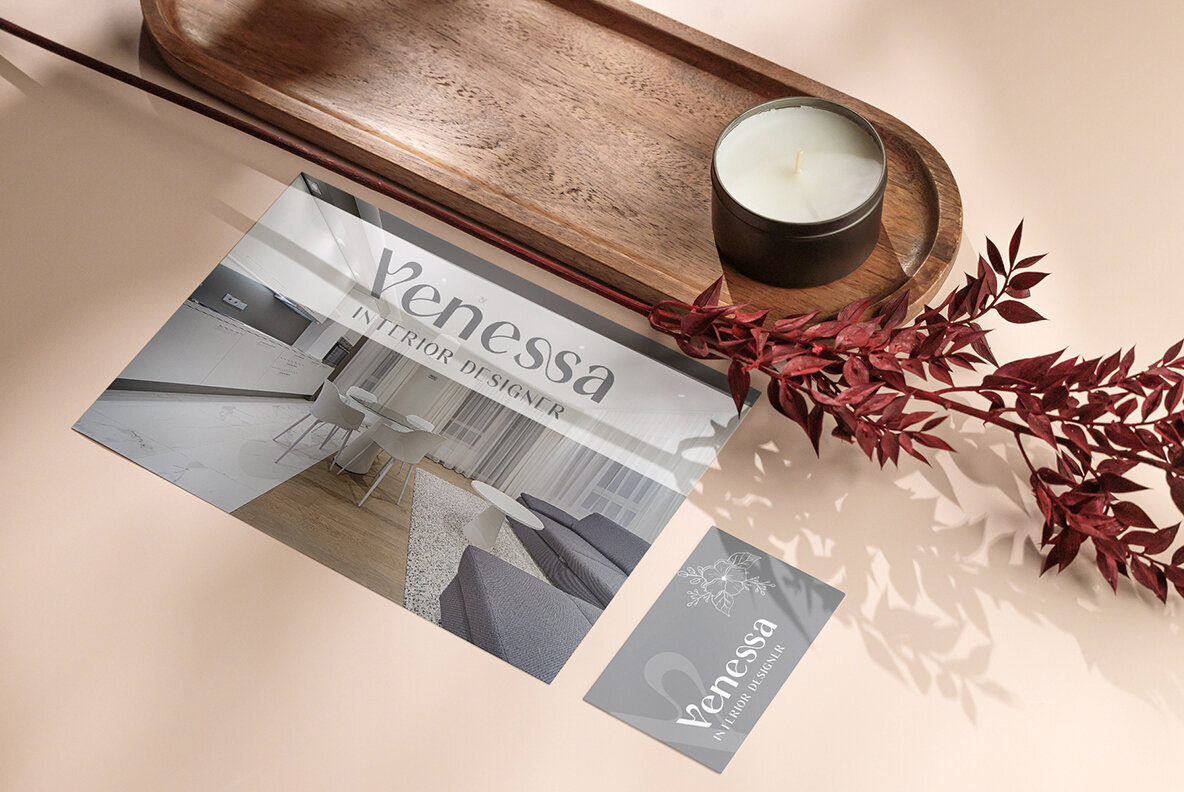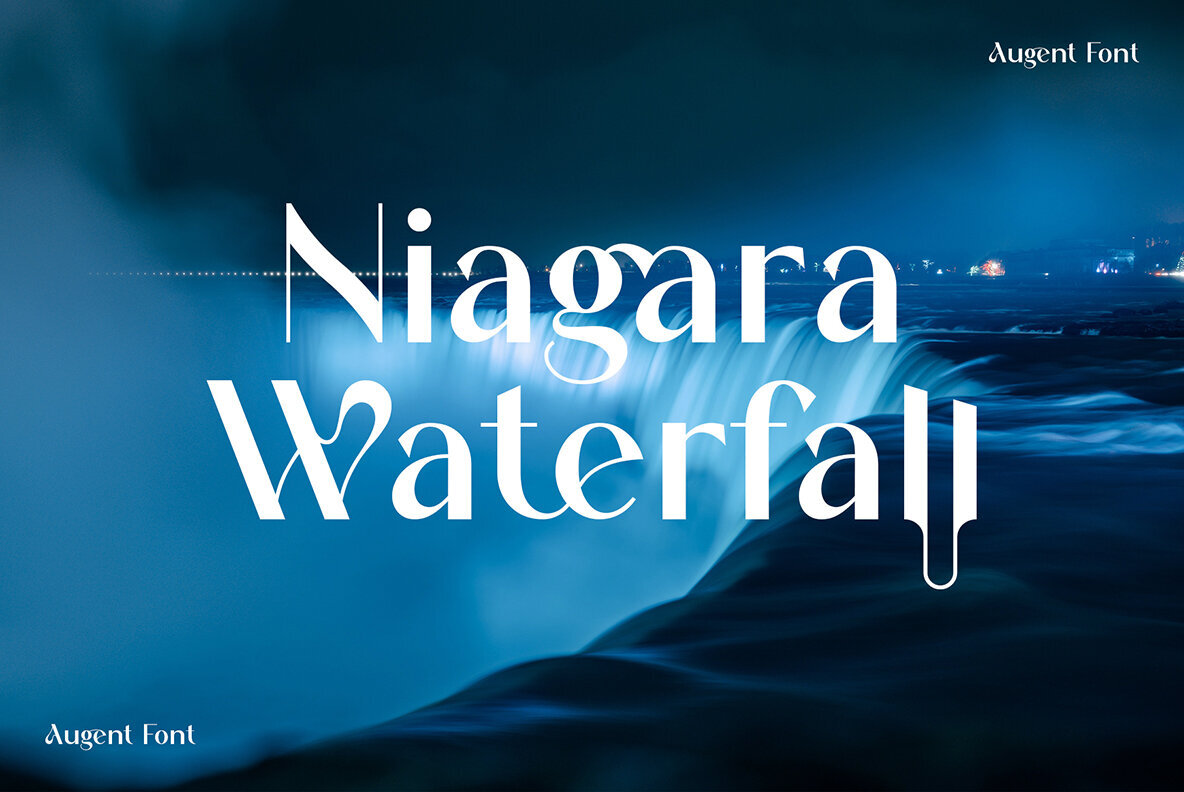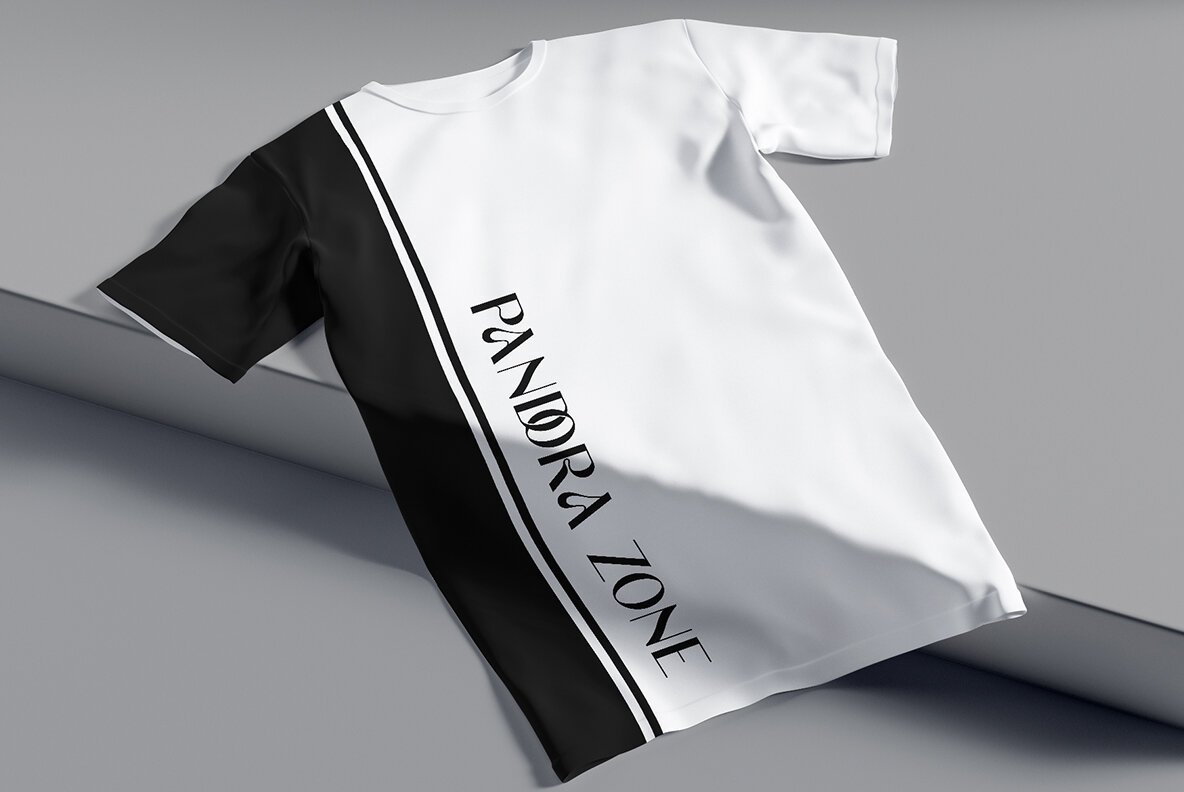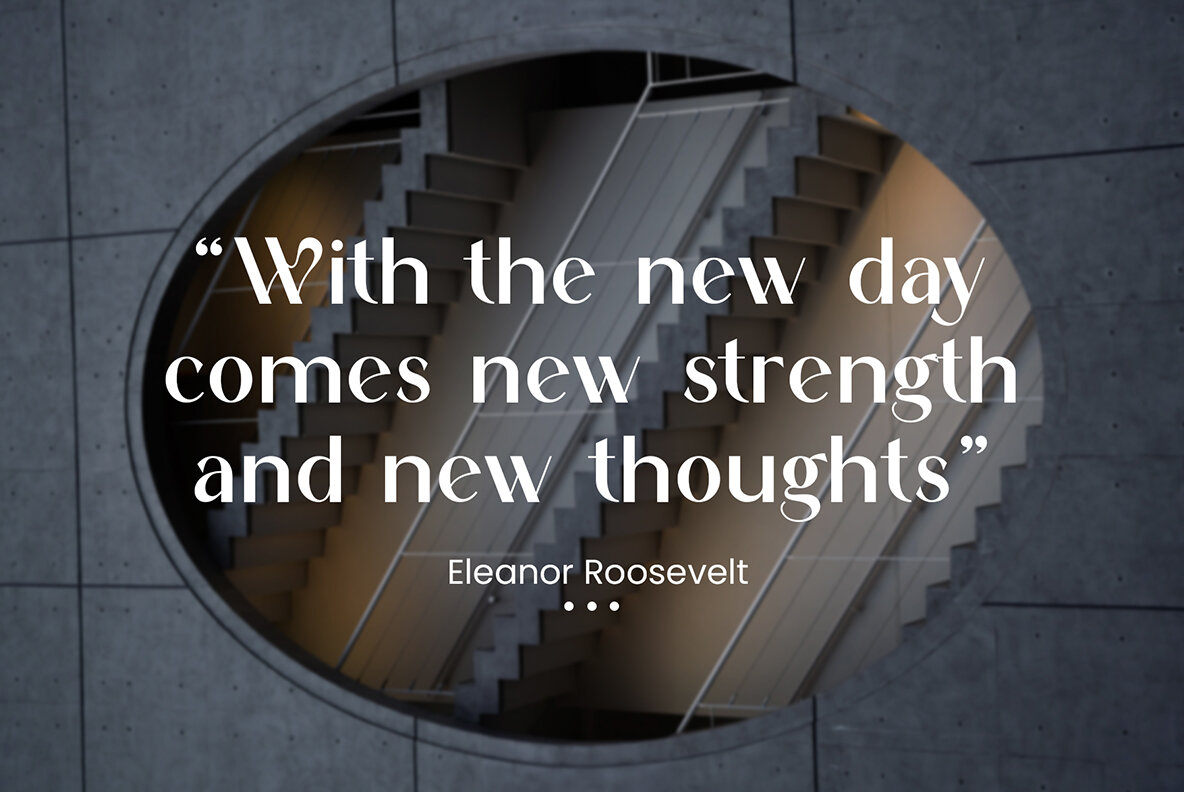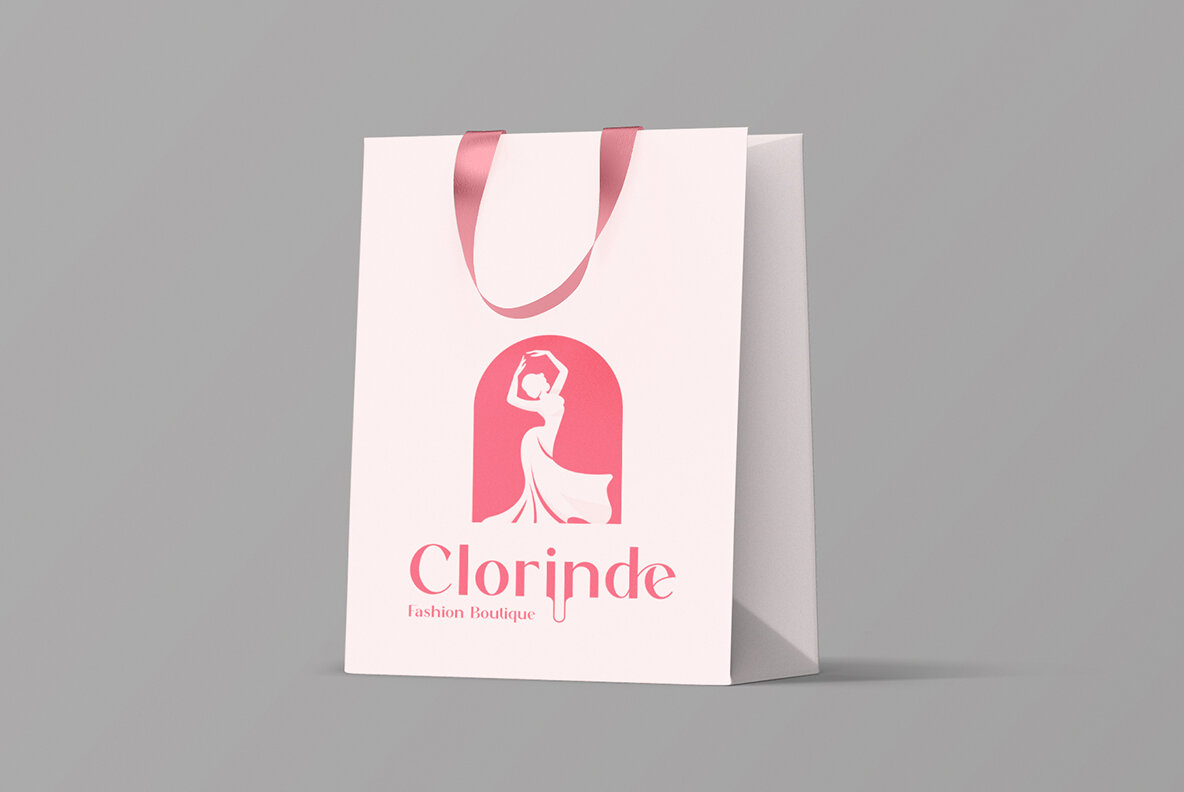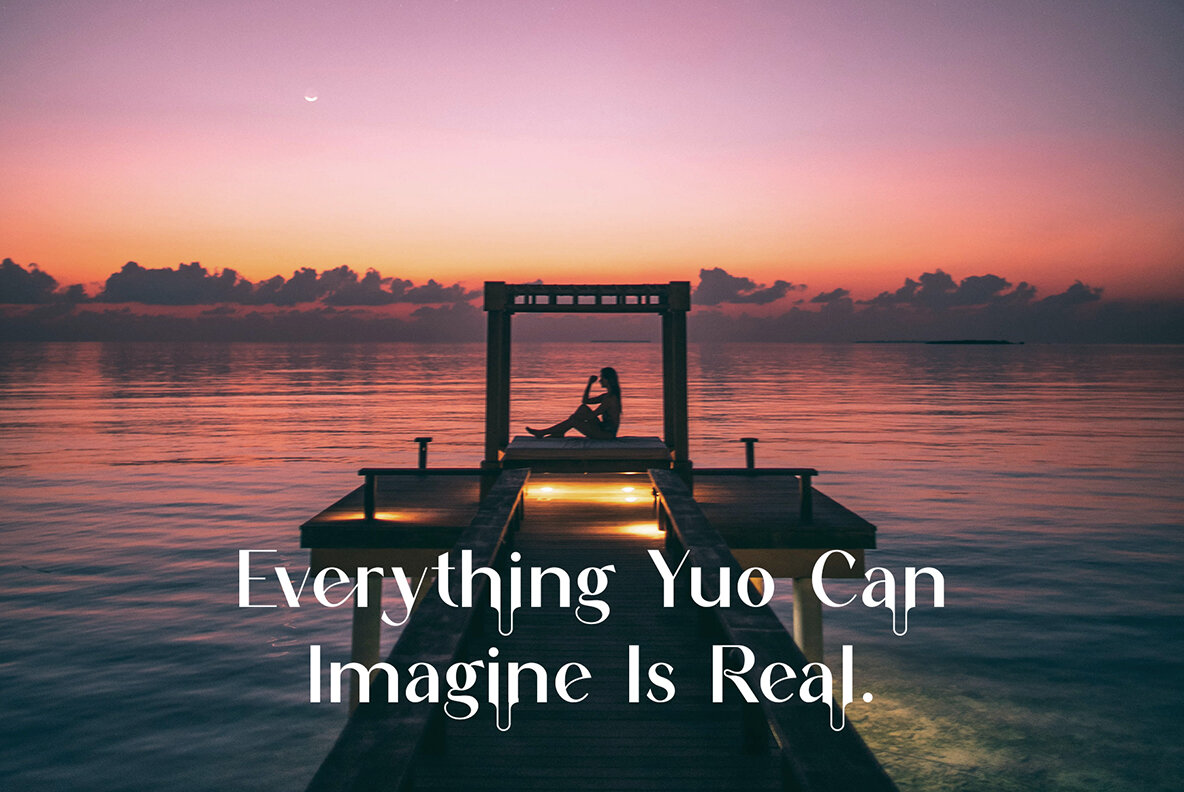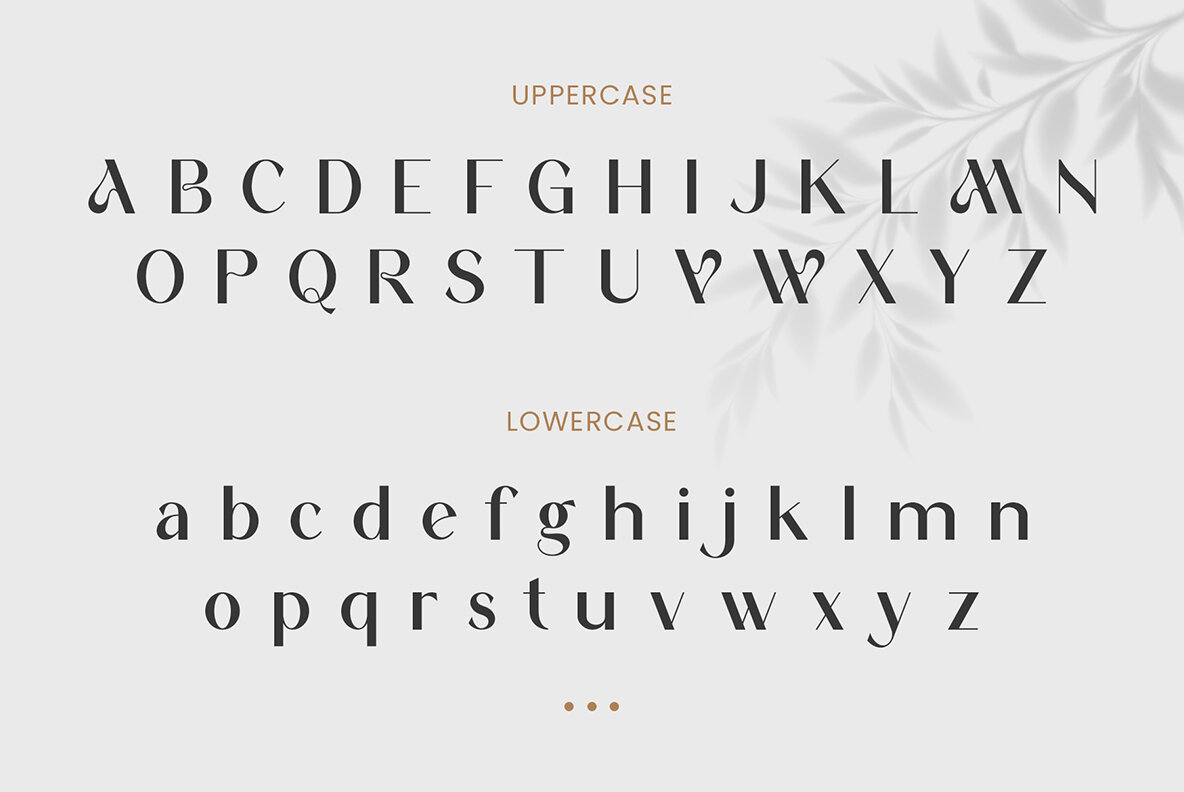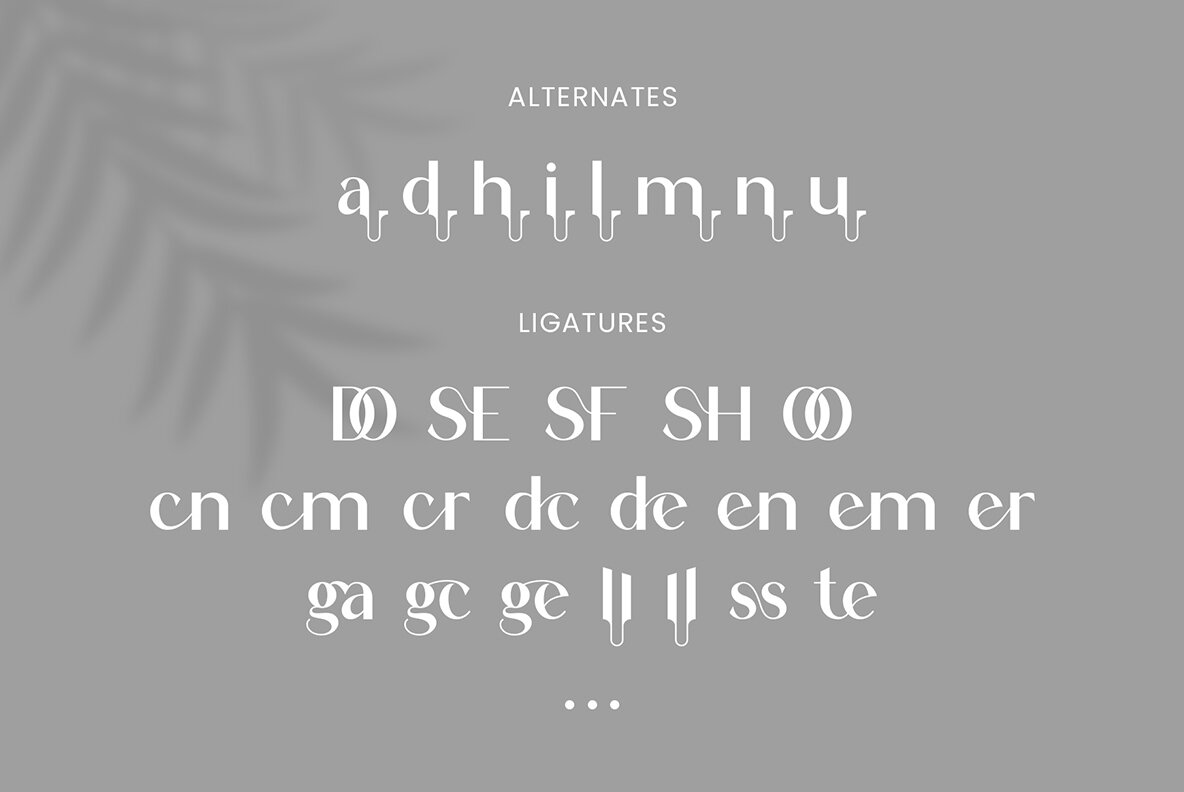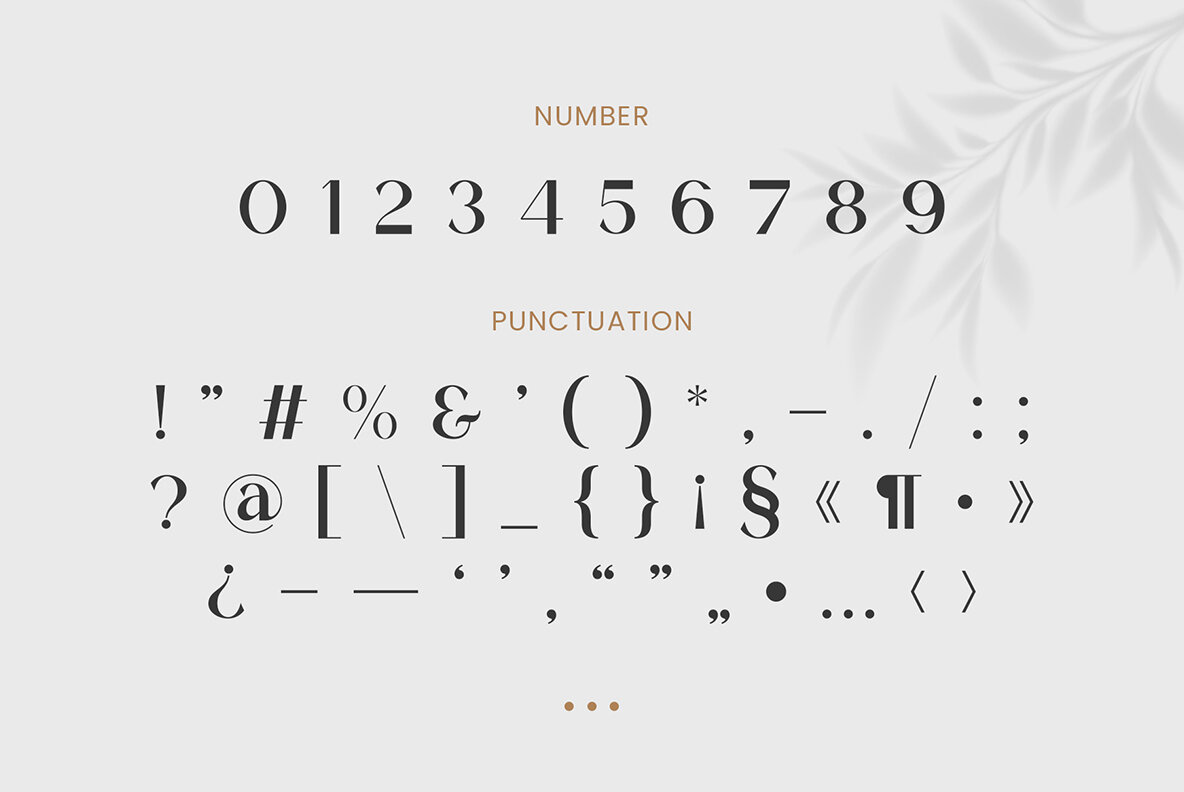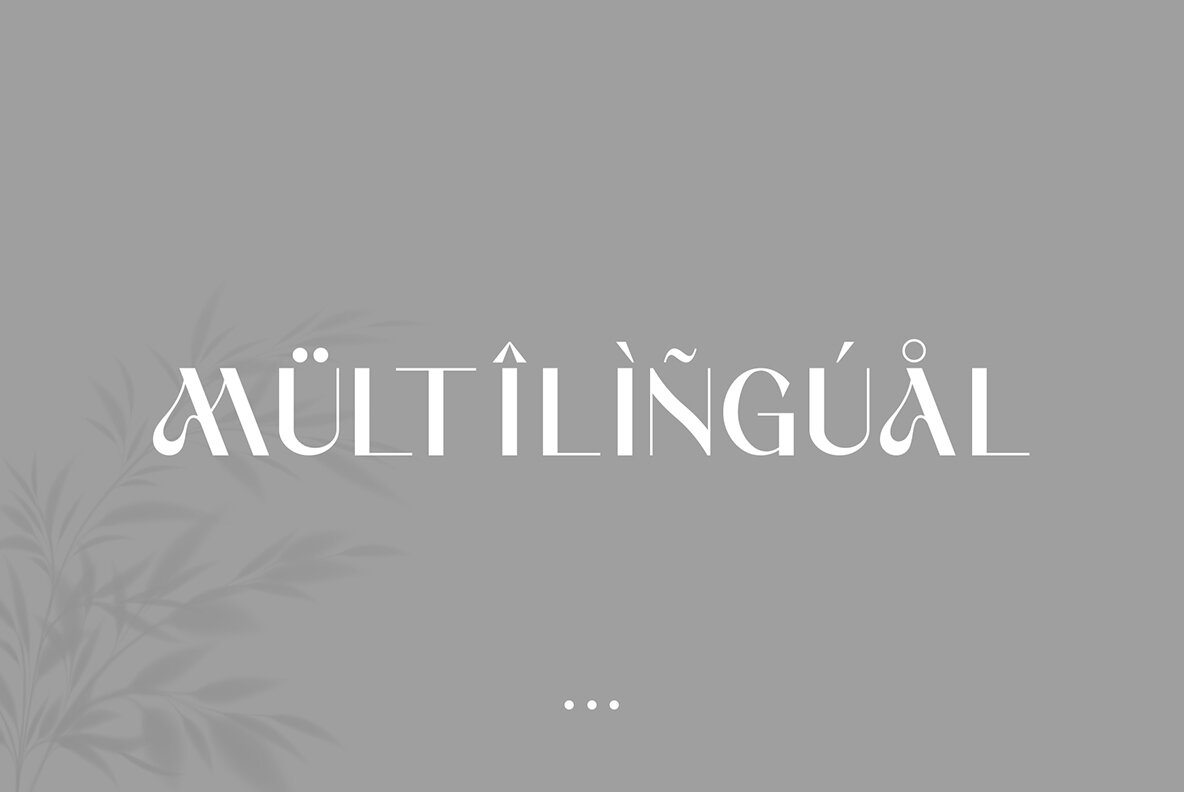
Augent Font
Augent Regular
Augent Sans Serif offers a balanced, smooth, and stylish design, making it a perfect choice for diverse creative projects. From invitation cards to company logos, movie titles to business cards, this font infuses sophistication and elegance into any design it accompanies. Its stylish alternations and ligatures offer versatility and flair for any project.Augent: Smooth and Stylish Sans Serif